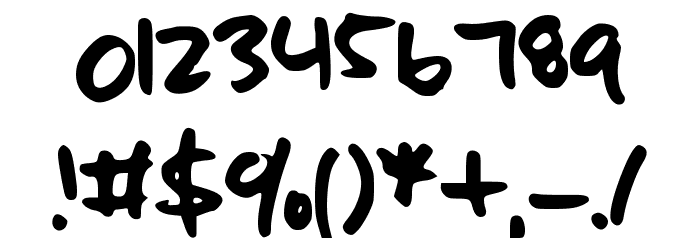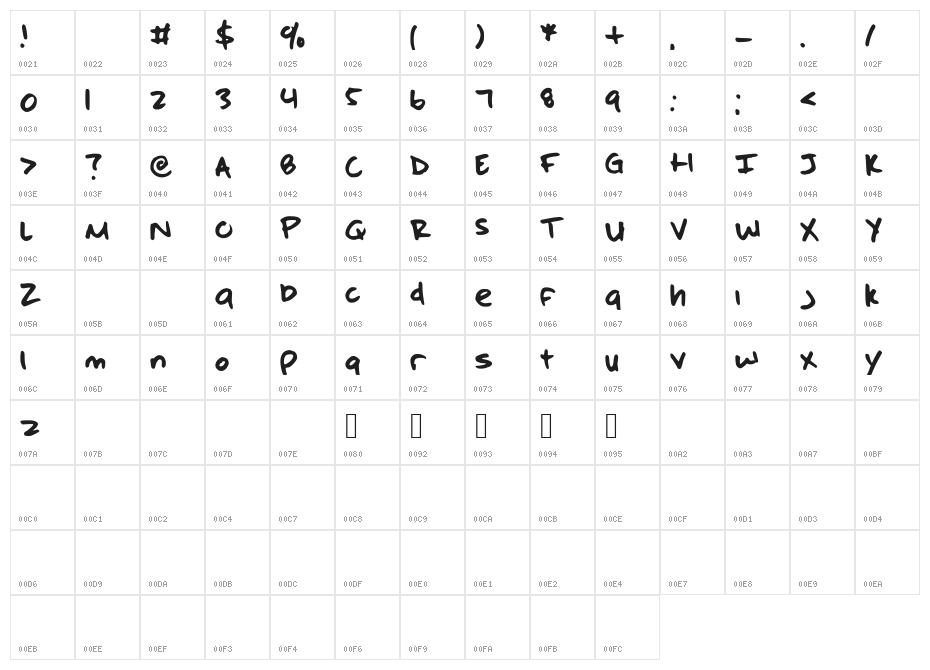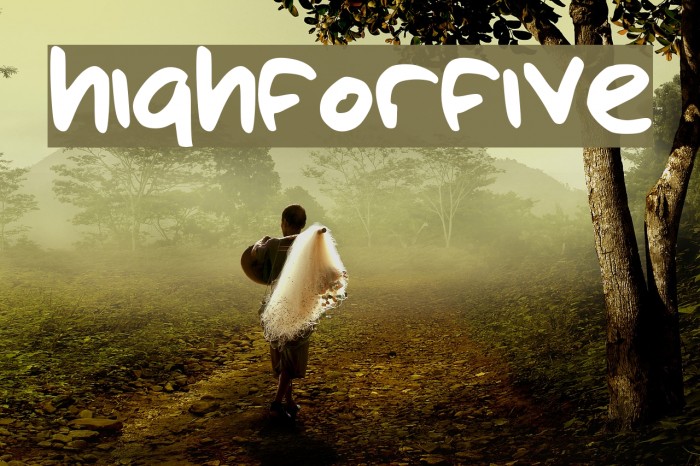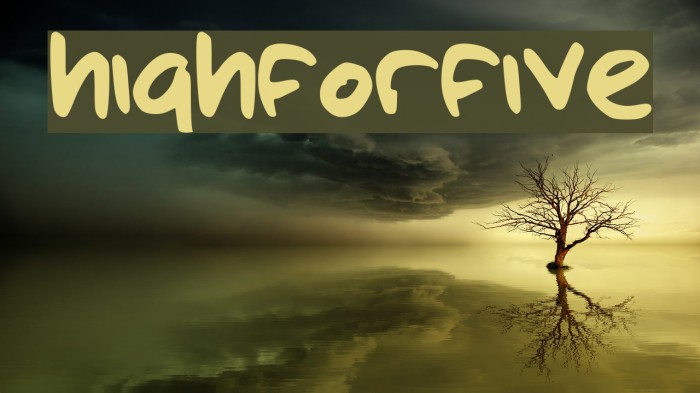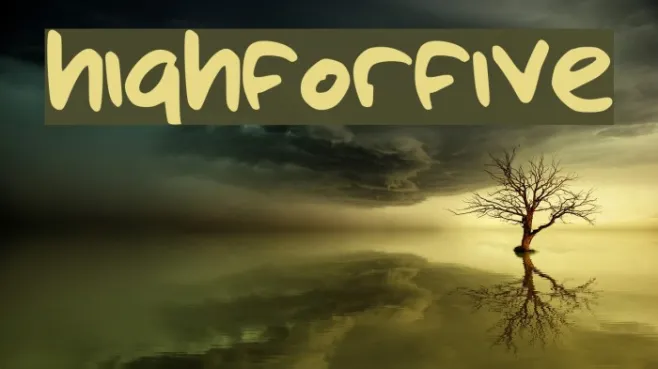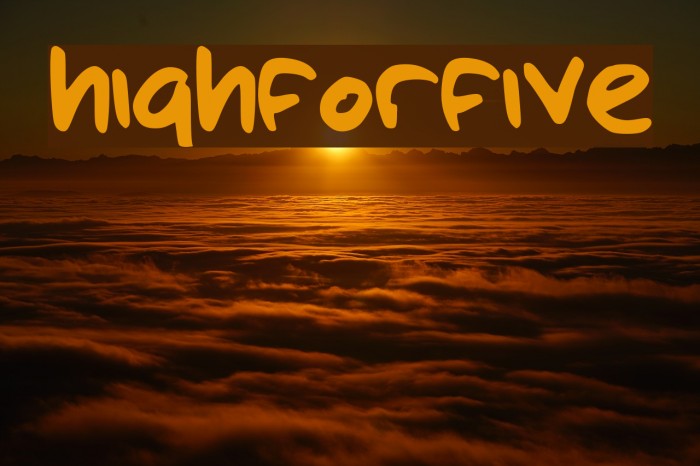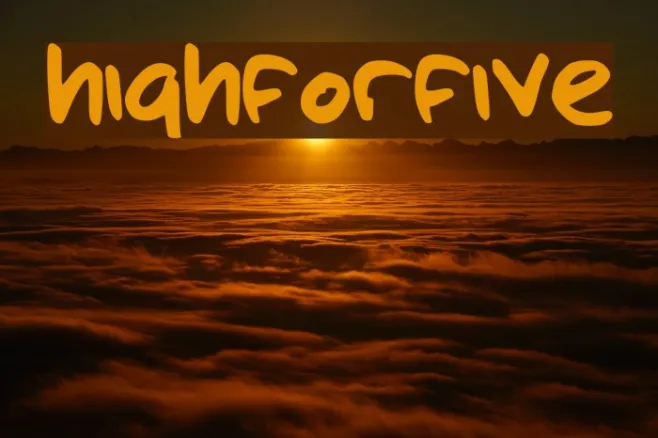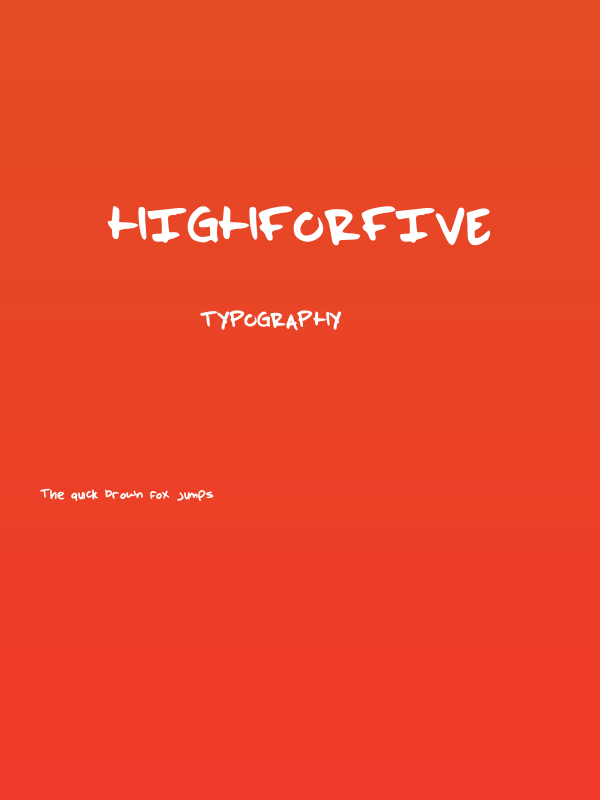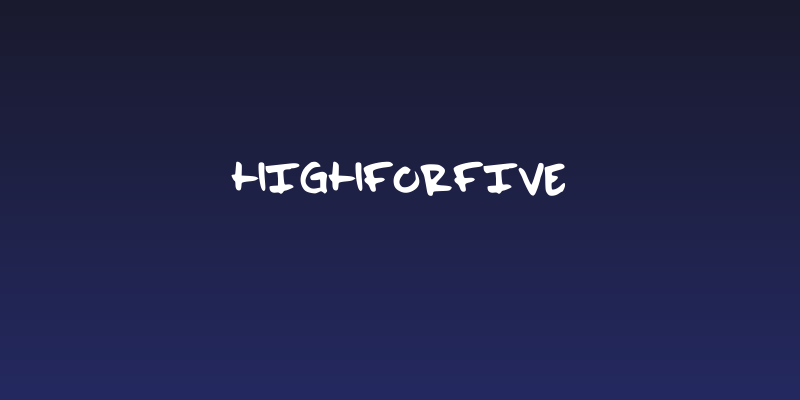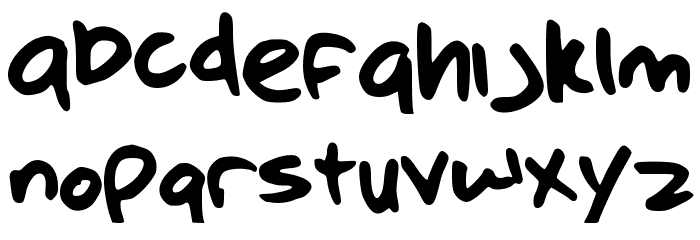
highforfive Font
highforfive Description
This font exhibits a playful and energetic handwritten style, characterized by its bold and slightly irregular strokes. The letters are rounded and have a casual, informal appearance, making it feel approachable and friendly. The uppercase and lowercase letters maintain a consistent style, with a slight slant that adds to the dynamic feel. Numbers and special characters are crafted with the same lively touch, ensuring uniformity across all glyphs. The overall impression is one of spontaneity and creativity, suitable for projects that require a personal and engaging touch.
| Proposed Projects | Ideal for children's books, greeting cards, playful branding, and social media graphics. |